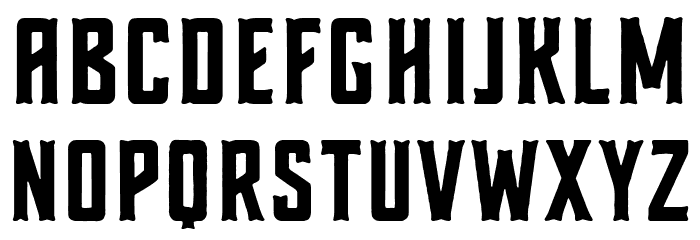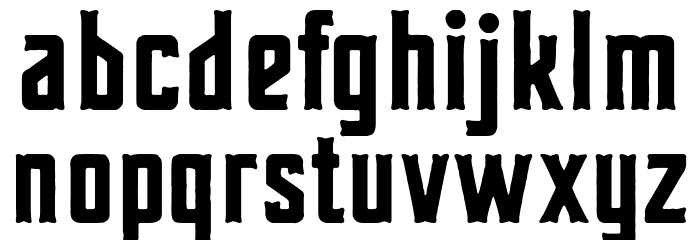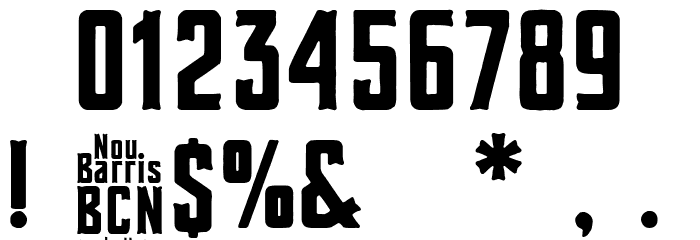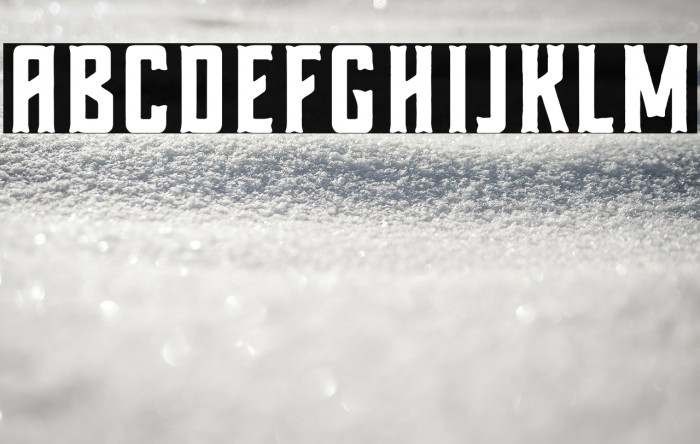
Nou Barris Bcn Font
This font features a bold, impactful design with a strong presence. The characters are blocky and robust, with a slight vintage feel that adds character and uniqueness. The uppercase letters are tall and commanding, while the lowercase letters maintain a consistent style, offering a cohesive look. Numbers and special characters are designed with the same boldness, ensuring readability and emphasis. The font's style is reminiscent of old-school signage or posters, making it ideal for projects that require a touch of nostalgia or a strong visual impact.
A bold, vintage-style font with a strong, blocky design.
- Proposed Projects: Ideal for posters, signage, branding, and any project needing a bold, vintage touch.
- Overall Style: Vintage